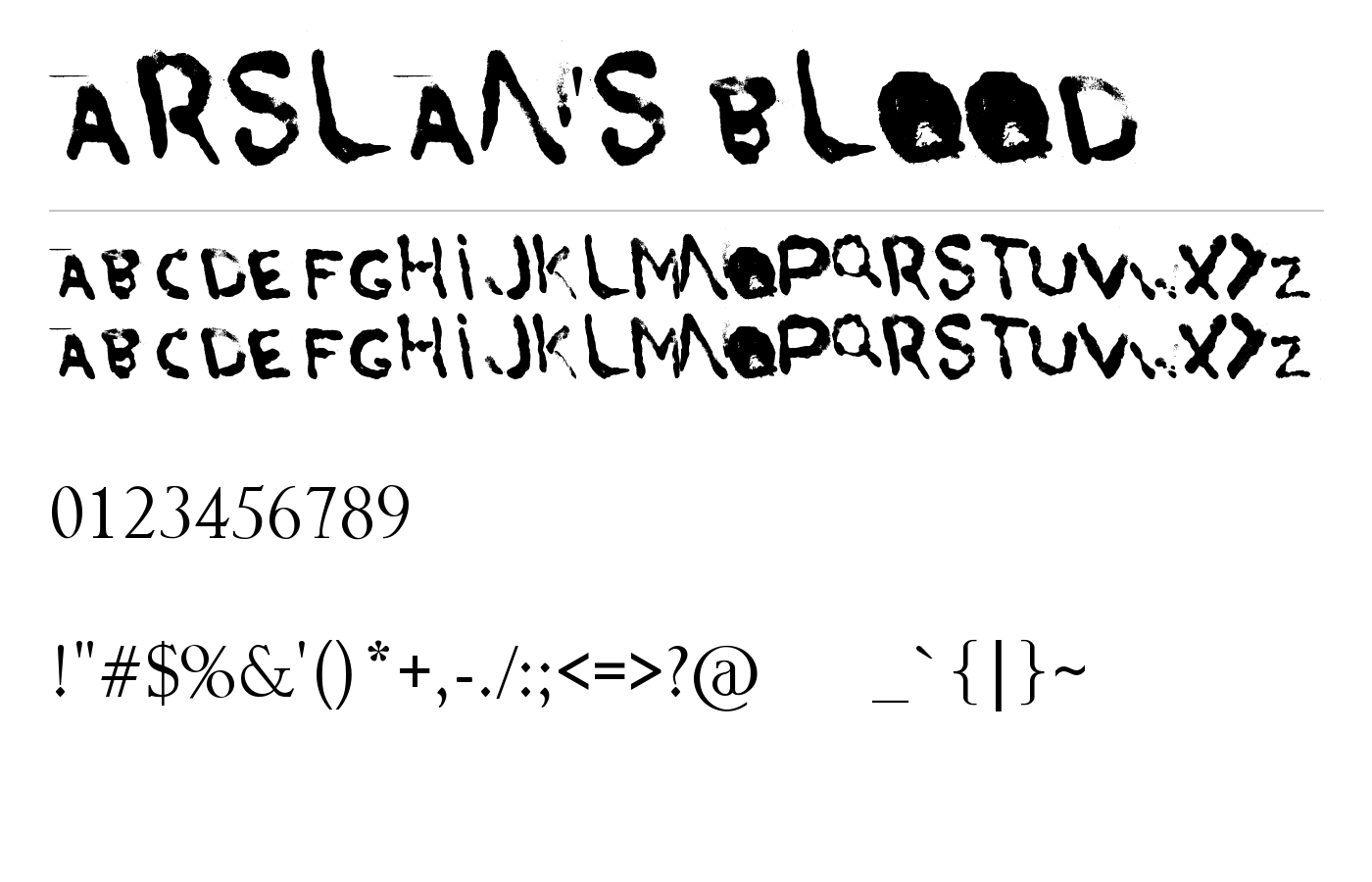
Arslan's Blood is a bold, distressed sans serif font that features rough, uneven strokes mimicking a raw, hand-painted look. Its high-contrast, irregular shapes and textured appearance give it an edgy, eerie vibe perfect for horror-themed designs, posters, or branding that seeks a gritty, intense atmosphere. This font works best in display use where its unique character can stand out and create a strong, emotional impact.
Arslan's Blood Font